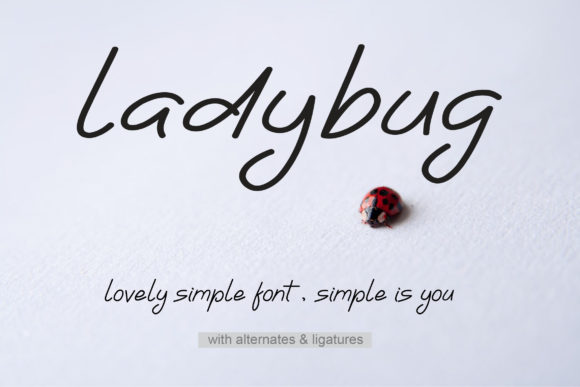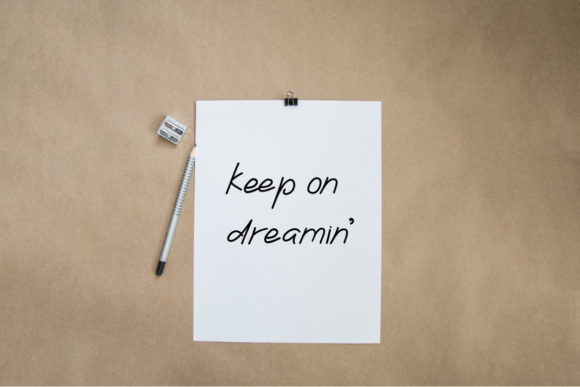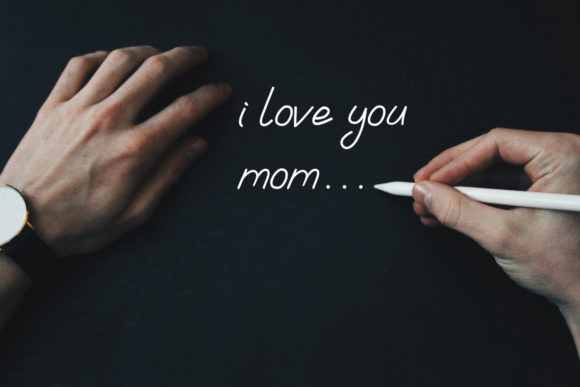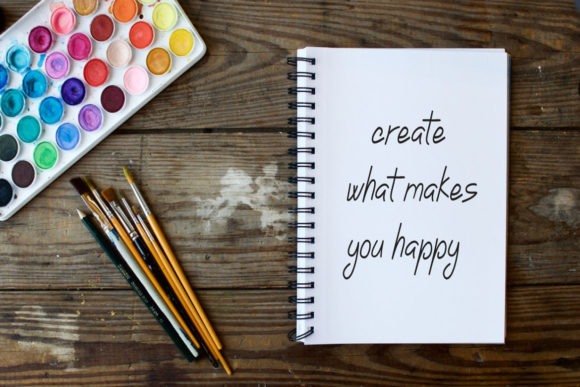
Ladybug Font: A Cute Handwritten Script for Cricut & DIY Projects
About the Ladybug Font
The wait is over! The incredible Ladybug Font is now available for your design toolkit. This lovely simple handwritten font has a natural writing style and will add a personal touch to your designs.
It’s suitable for logos, watermarks on photography, signatures, quotes, album covers, business cards, clothing, magazines, posters and much more!
Ladybug Font’s casual, friendly personality makes it ideal for projects requiring a warm, approachable feel. It excels in applications like logos for small businesses, social media graphics, hand-lettered quotes on posters, and packaging for artisanal products. However, its informal nature makes it less suitable for large blocks of body text or applications demanding high readability, such as website UI or lengthy documents.
Pairing Ladybug Font with a clean sans-serif like Open Sans for body copy creates a balanced and professional look. For a more playful feel, consider pairing it with a geometric sans-serif such as Montserrat. A classic serif like Garamond can add a touch of sophistication if a more formal contrast is desired.
Its overall aesthetic is best described as friendly and approachable, conveying a sense of handcrafted charm and personal connection. Avoid using it where a highly professional or formal tone is required.
Ladybug Font Usage Examples